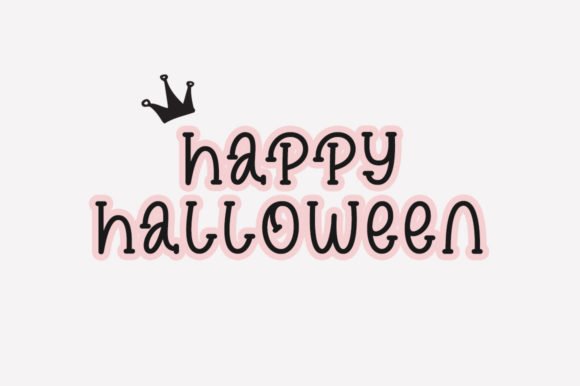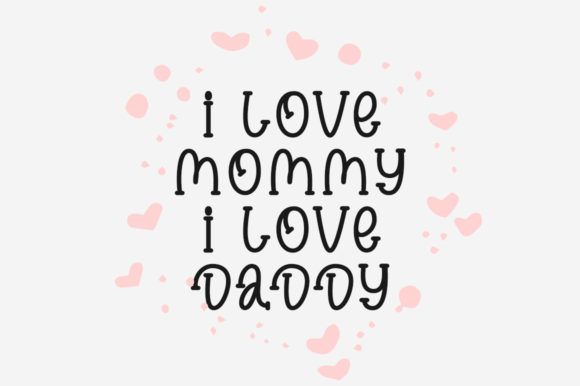
Lovely Strawberry Font
db-ku.com - Script & Handwritten -- Lovely Strawberry is a cute, quirky and friendly handwritten font. Whatever the topic, this font will be a wonderful asset to your font library, as it has the potential to enhance any creation.